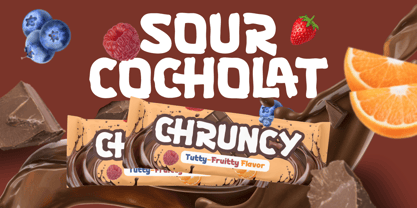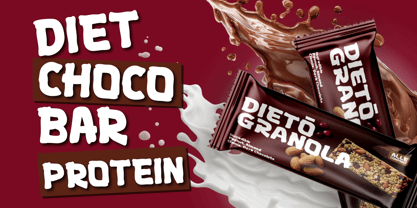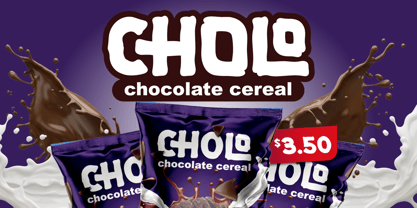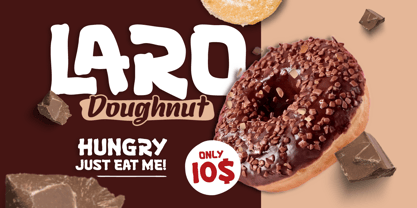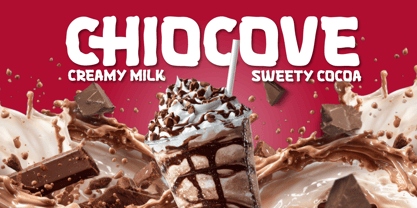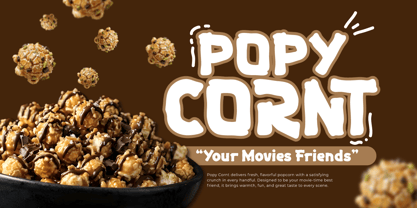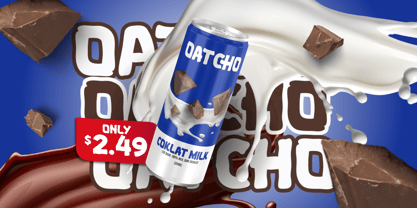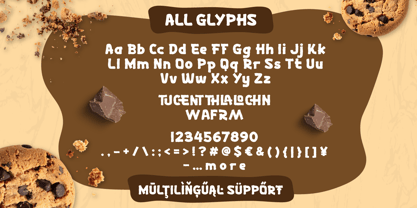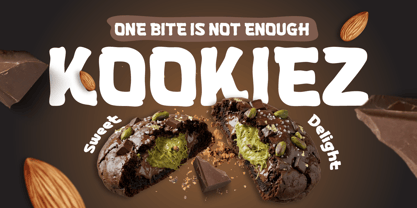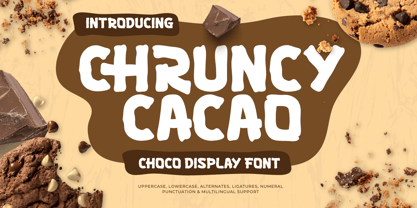
Chruncy Cacao is a Choco Display Font typeface specifically designed for visual needs within the F&B (Food & Beverage) industry. Featuring bold and organic letterforms, this font represents the texture of chocolate and sweet treats, providing an appetizing and consumer-friendly visual impression for the Snack & Confectionery sector.
Its solid and chunky design structure ensures optimal readability on Chocolate Bar packaging and other food product labels. The character traits, featuring subtle textured accents, provide an authentic artisan feel, making it a practical choice for Daily Break-time Snack themes that are casual yet remain visually professional.
As a specialist culinary product font, Chruncy Cacao is ideal for bakery branding, desserts, and digital promotional materials. This font helps designers create product identities that stand out on retail shelves and social media alike. With its modern and engaging aesthetic, Chruncy Cacao is the right solution for strengthening visual hierarchy in daily product packaging designs.
Chruncy Cacao